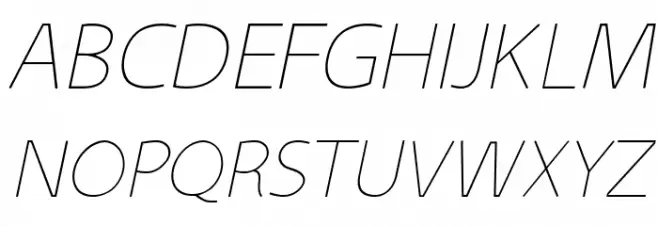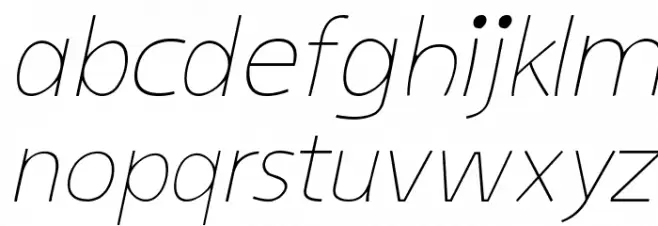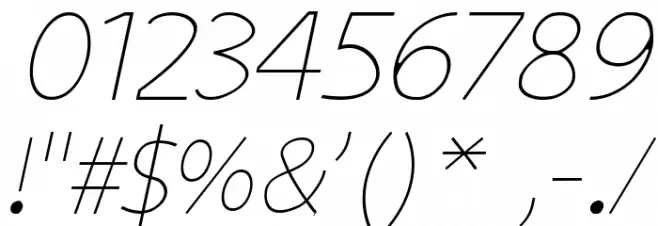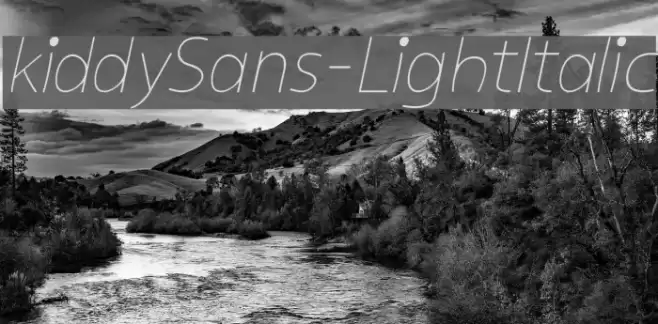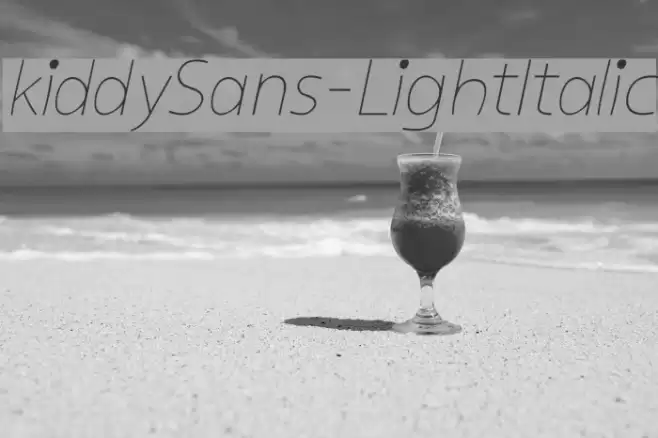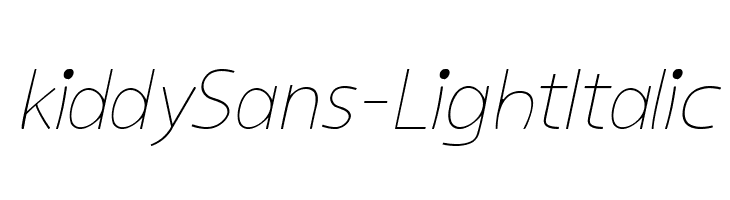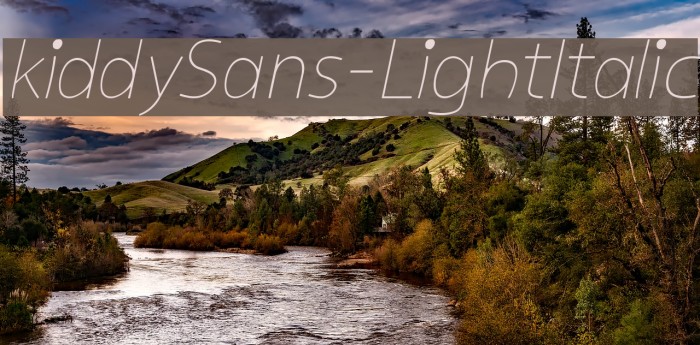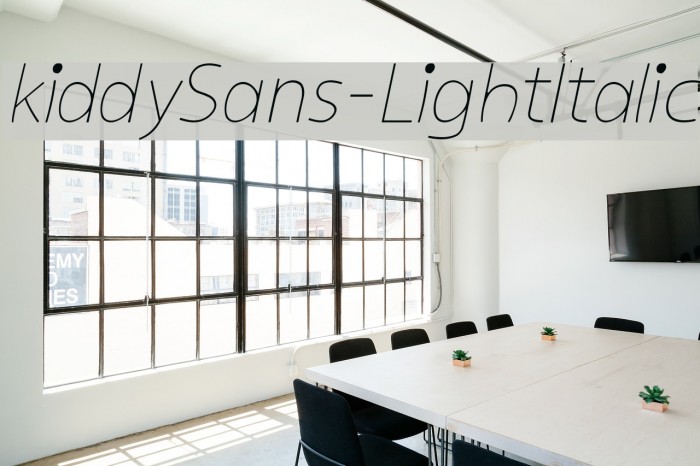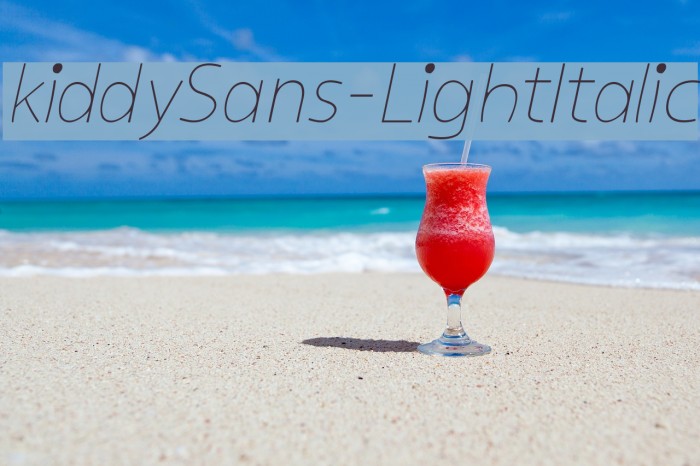
kiddySans-LightItalic
This font features a sleek, modern design with a light and airy feel. The characters are slightly italicized, giving a sense of motion and elegance. The strokes are thin, contributing to a clean and minimalist appearance. The uppercase and lowercase letters maintain a consistent style, with smooth curves and a uniform height. Numbers and special characters are designed to match the overall aesthetic, ensuring a cohesive look across all text. The font's simplicity and clarity make it versatile for various design applications.
A sleek, modern, and slightly italicized font with thin strokes and a minimalist design.
- Proposed Projects: Ideal for modern branding, editorial design, digital content, and minimalist graphic projects.